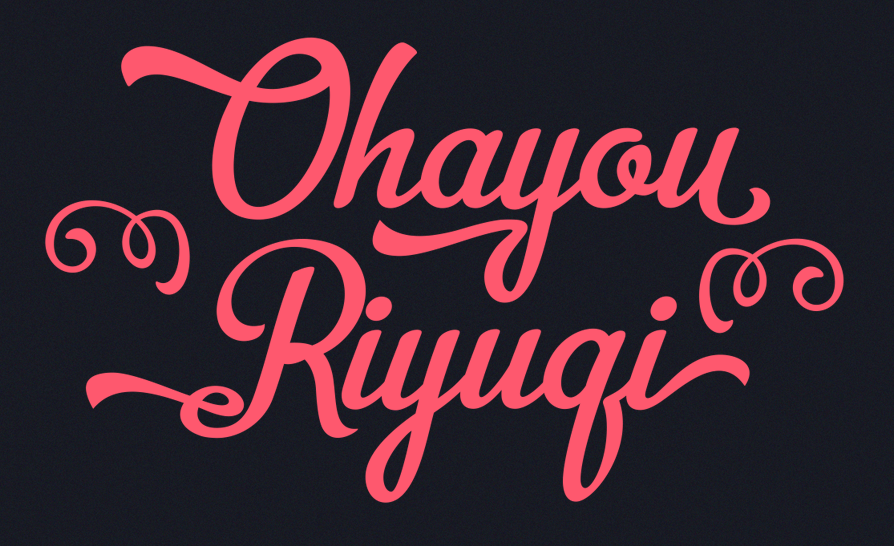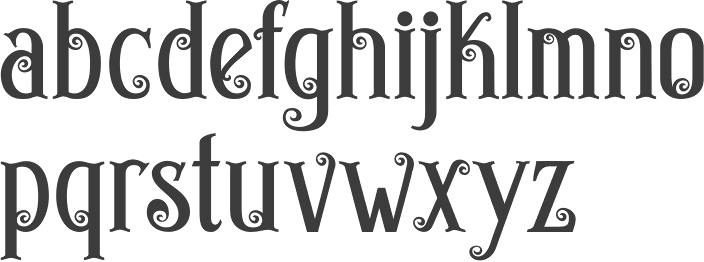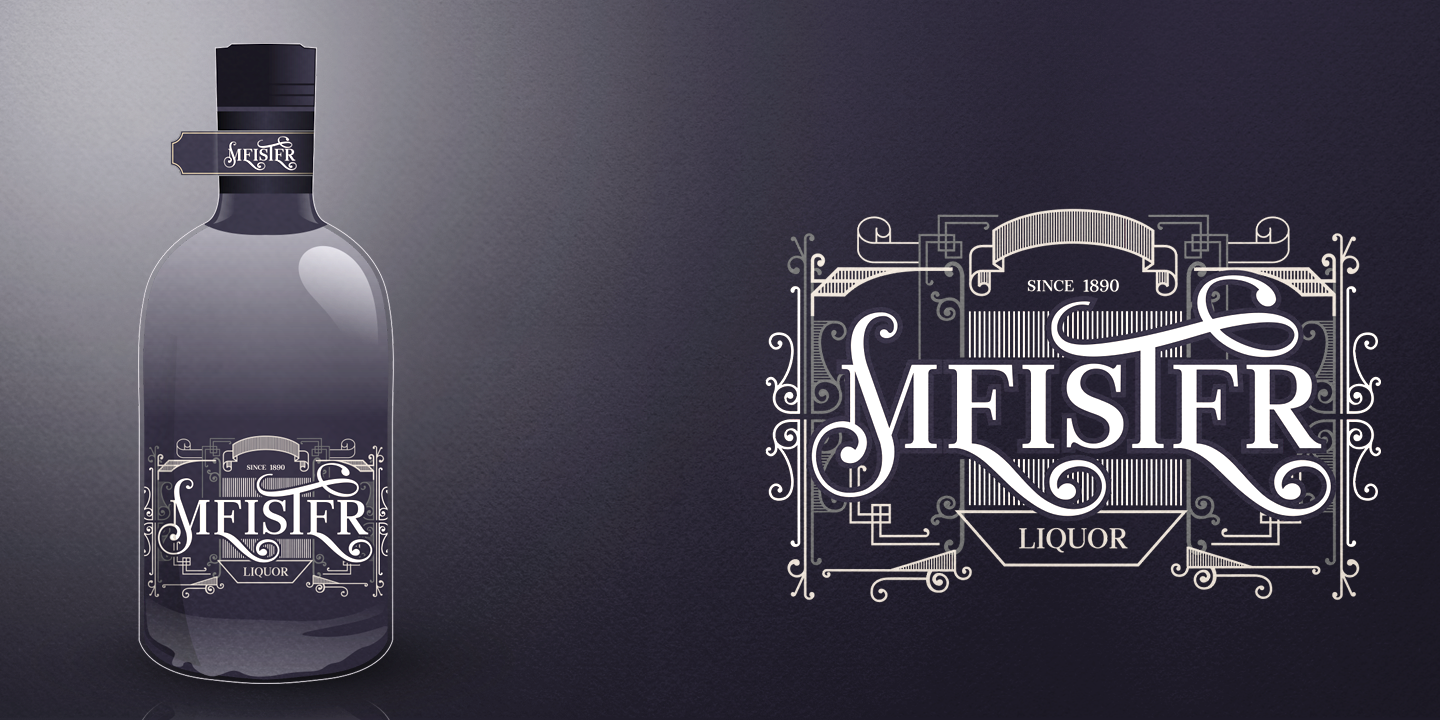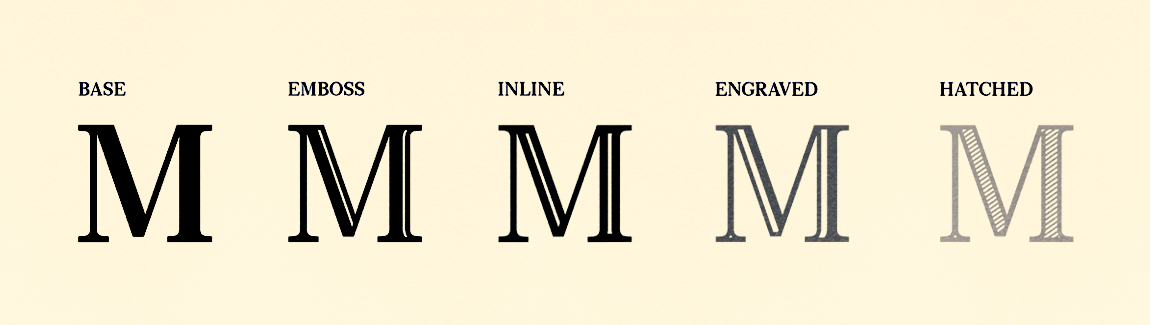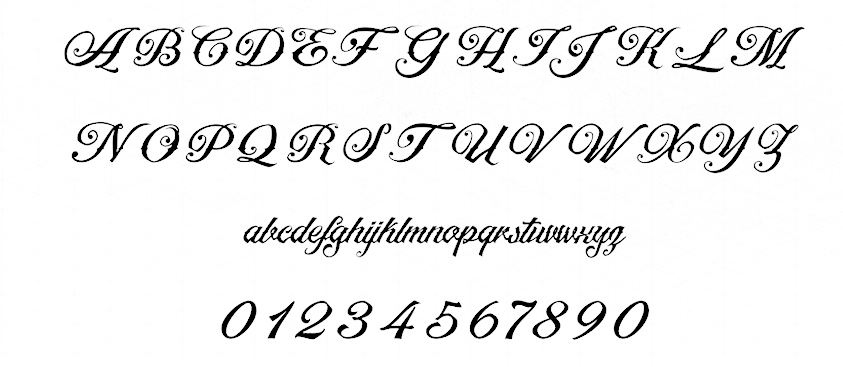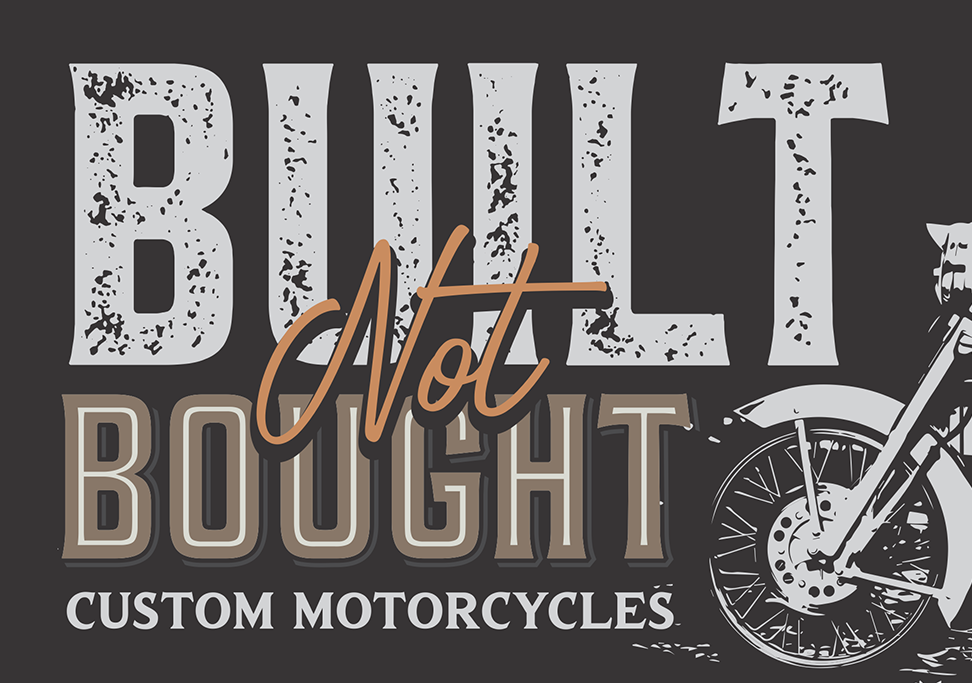
Seventh Imperium [Cucu Supriyadi]
Bandung, Indonesia-based type foundry est. 2015, showcasing typefaces designed by Cucu Supriyadi. Cucu left Seventh Imperium in 2020 to set up a new type foundry, Thirtype. His initial work is largely Victorian, characterized by spurious curls or spurs:
• Agneya (2015). A calligraphic brush script with an urban street art vibe.
• Screter (2015). A spurred tattoo font with a blackletter feel.
• Artonic (2015). A tattoo script.
• Bellico (2015). A signage script.
• Black Future (2015). A blackletter / tattoo /metal band font.
• Bolyar (2015). An all caps display typeface. Almost an exact copy of FM Bolyar Pro (2013, Vasil Kateliev and Jordan Jelev).
• Clarize (2018). A high-contrast didone family. Followed by Clarize Display (2019), which has a great Engraved style.
• Egory Castle (2015).
• Goldana (2017). A great layered font family that emulates chromatic type.
• Heiders (2018, a 72-style script and sans typeface family).
• Kyouking (2015).
• Lockon Velline (2015).
• Lunair (2019). A layerable script family.
• Midnight Coffee (2015).
• Monstice (2018). A stylish vintage typeface family with textured and inline styles.
• Revorioum (2015).
• Swiftel (2015). A layered creamy signage script font.
• Gratinoli (2019).
• Truens (2019). A vintage font collection.
• Exorts Compressed (2020). A great compressed ultra black octagonal typeface family.
• Autherical (2020). A Fraktura font.